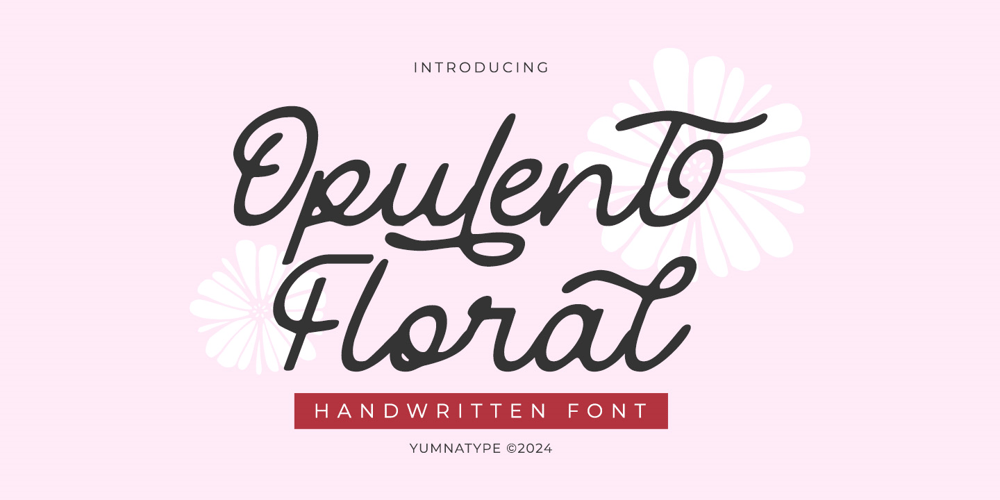
Opulent Floral Font Family was designed by Donis Miftahudin and published by Yumna Type. Opulent Floral contains 1 styles and family package options. Opulent Floral is an exquisite script font that embodies the graceful elegance of cursive handwriting. At its core, Opulent Floral is crafted to resemble cursive handwriting, with each character flowing seamlessly into the next. The letter weight is delicately balanced, with a subtle thickness that adds a touch of refinement without overpowering the text. One of the most enchanting characteristics of Opulent Floral is the addition of floral-inspired elements at the beginning or end of select letters. These delicate flourishes add a whimsical and romantic touch to the font. Whether used sparingly as decorative accents or as part of the letterform itself, these floral details elevate the elegance of the font and make it truly stand out.Despite its decorative elements, Opulent Floral maintains excellent legibility, thanks to its consistent proportions and carefully crafted design. Each letter is meticulously crafted to ensure clarity and readability. In addition, enjoy the features here.Features: Ligatures Stylistic Sets Multilingual Supports PUA Encoded Numerals and Punctuations Opulent Floral fits in headlines, logos, posters, flyers, branding materials, greeting cards, print media, editorial layouts, and many more designs. Find out more ways to use this font by taking a look at the font preview.Thanks for purchasing our fonts. Hopefully, you have a great time using our font. Feel free to contact us anytime for further information or when you have trouble with the font. Thanks a lot and happy designing.